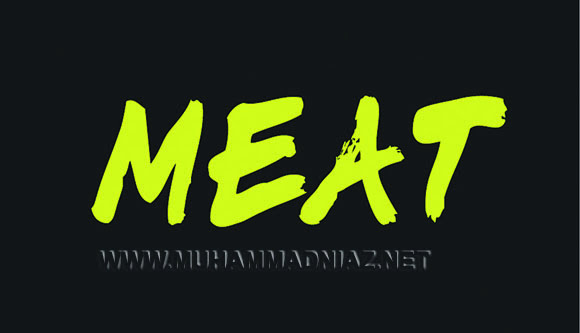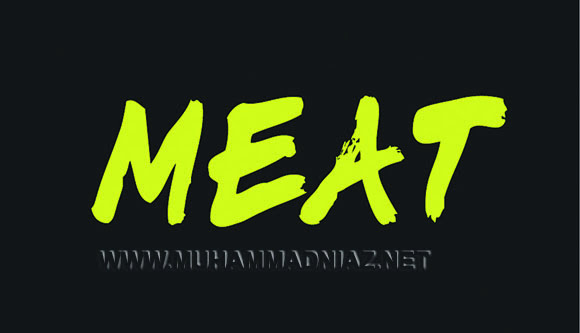
Meat script was made in collaboration with famous graffiti artist MEAT. This is great, aggressive and dynamic type for tag lines. They have designed only caps glyphs in two weight styles – regular and bold. This font looks awesome in bigger applications.